Austin Baker / Ficciones Typografika
New sketches from a path of questions, not answers.
Above: MCAD student Austin Baker’s inspired examination and deconstruction
of his own handwritten notes. A part of our continuing effort to develop ficciones
typografika, Austin’s frenetic and free form ‘scrawl’ provides the perfect landscape
for analyzing and detailing the essence of form and content.
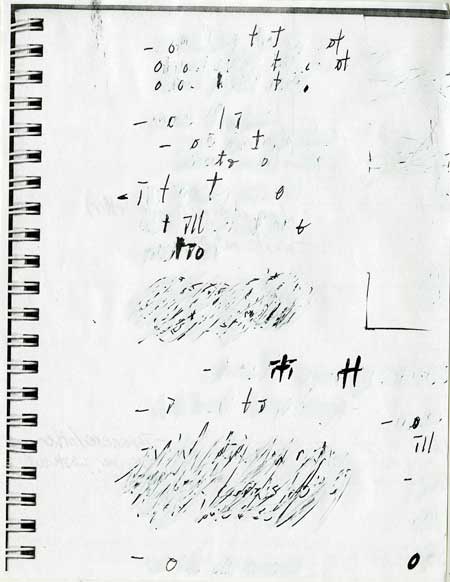
Above: More selections from Austin’s process. If these seem odd or off the mark,
consider the essentially ephemeral nature of graphic design and typography today-
limited to paper, it will surely rot and fade with time. Austin’s direction strongly
resembles these ancient tombstones I found while on a visit to England and
Scotland last summer.
Above: From Prestbury, England (click for a larger image and please see
Geotypografika Scotland on Flickr). Remember Alan Weisman’s, The World
Without Us, and consider the weight and direction the chisel made on these
stones. After careful reflection, you will know the true power and longevity
of vertical strokes. Quo vadis, Open Type?
Here lies true typography.
Austin, avanti!